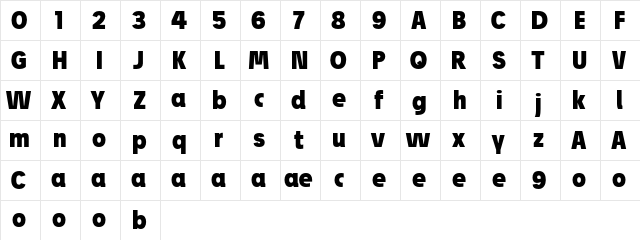
Josef Pro Bold Black
| Foundry | Ingo Zimmermann, Augsburg |
| Designer | Ingo Zimmermann |
Design Context for Josef Pro Bold Typeface
Josef Pro Bold offers clean, dependable letterforms without strong stylistic allegiance, making it a practical choice for designers who need flexibility. The heavy weight commands attention and anchors typographic hierarchies.